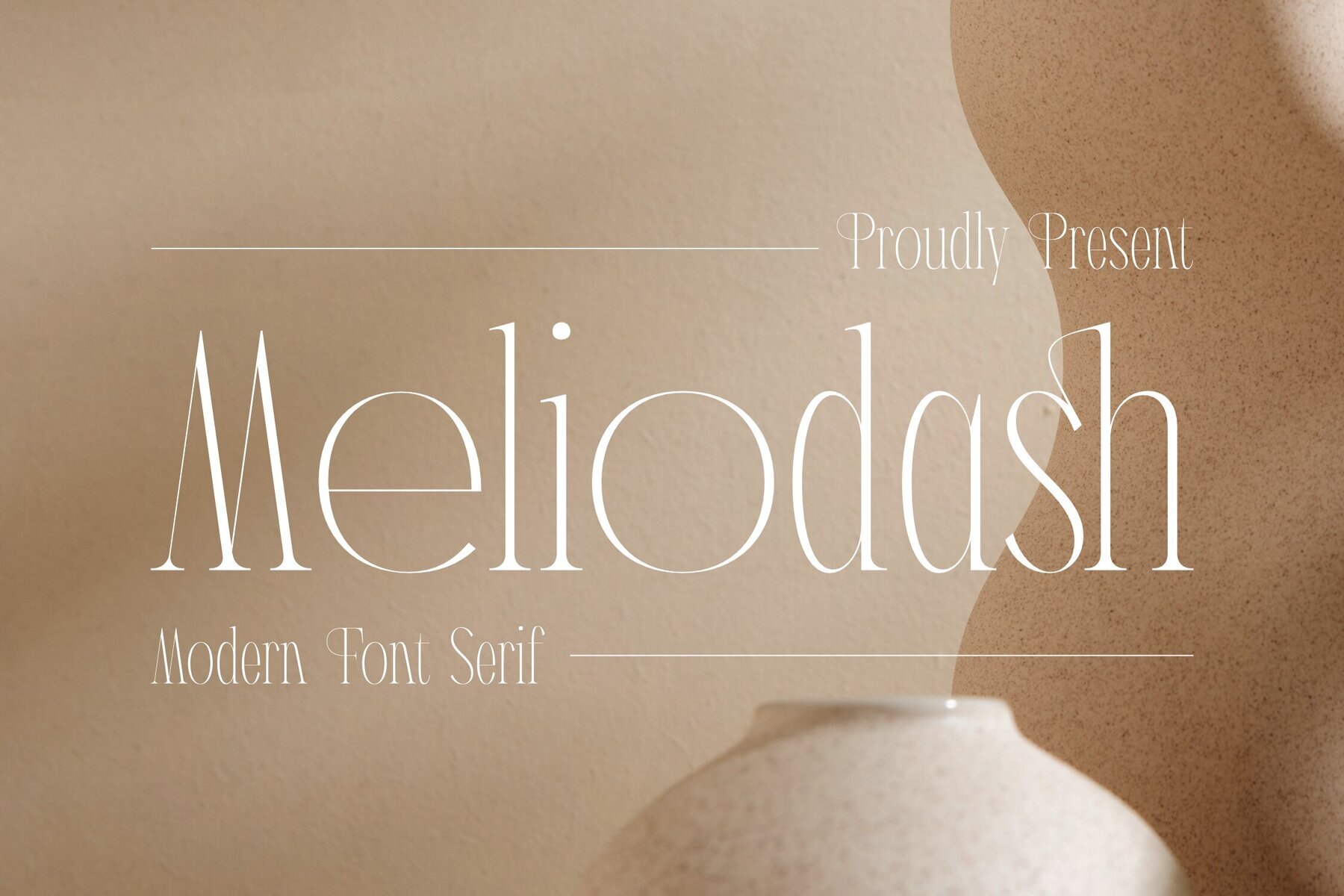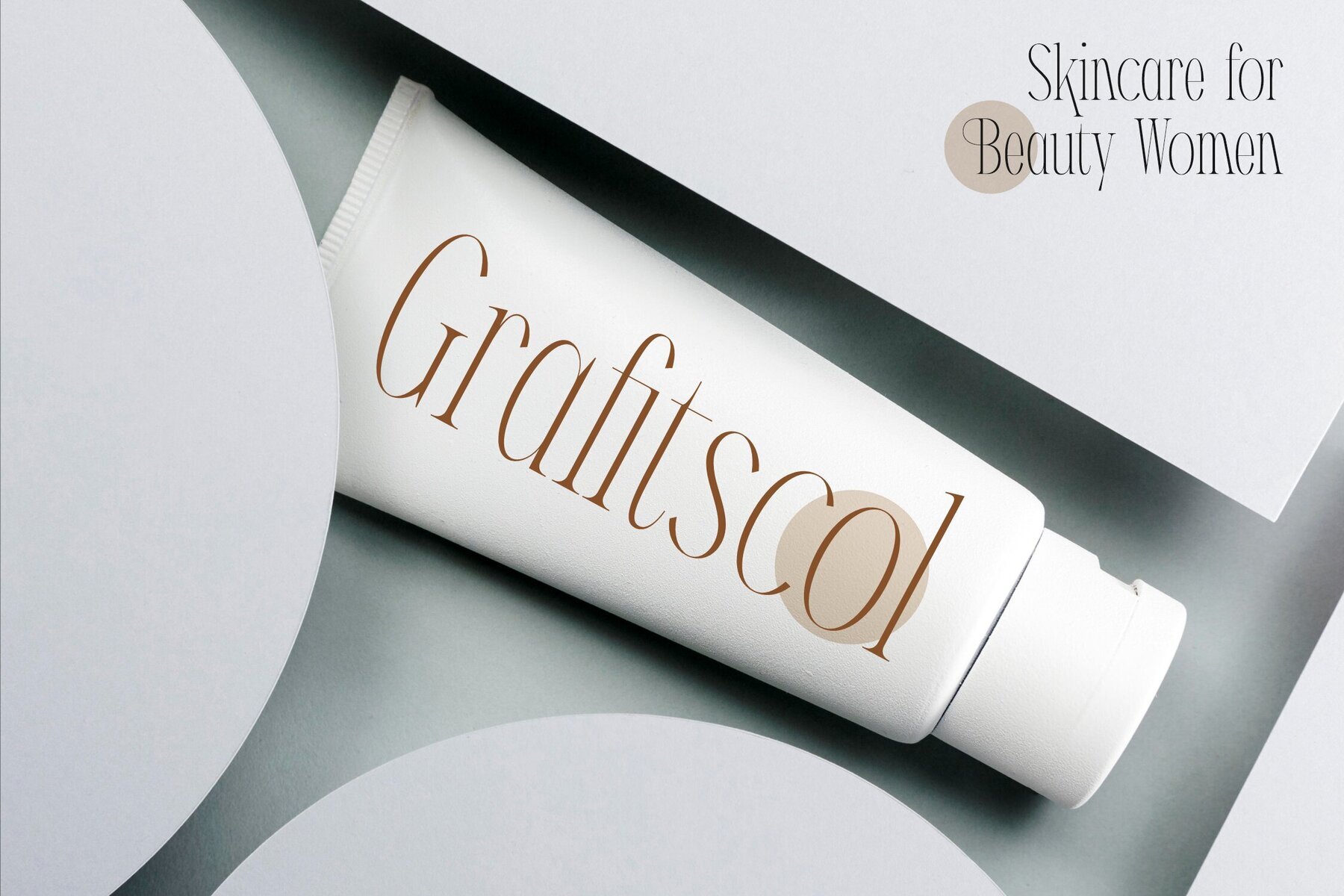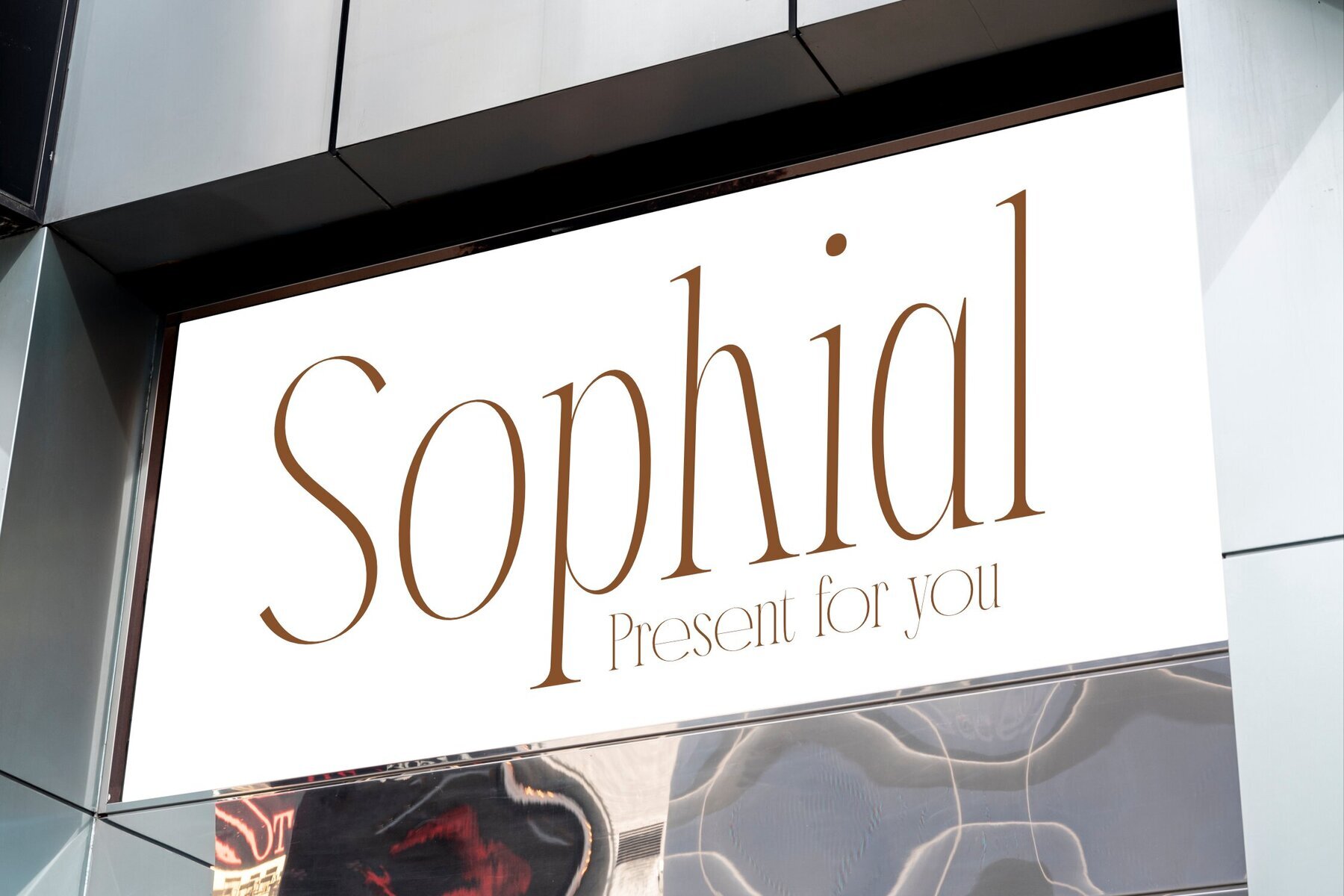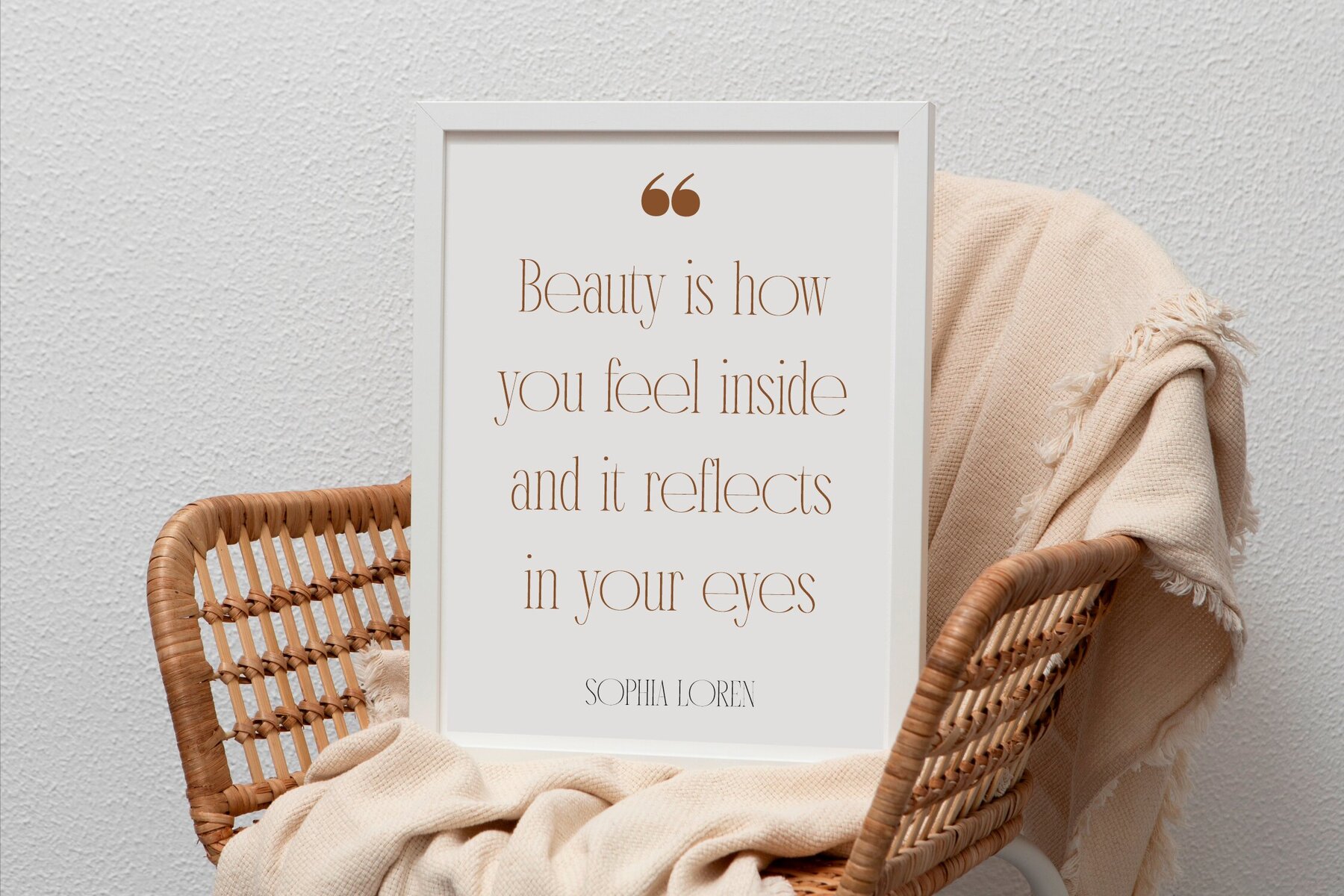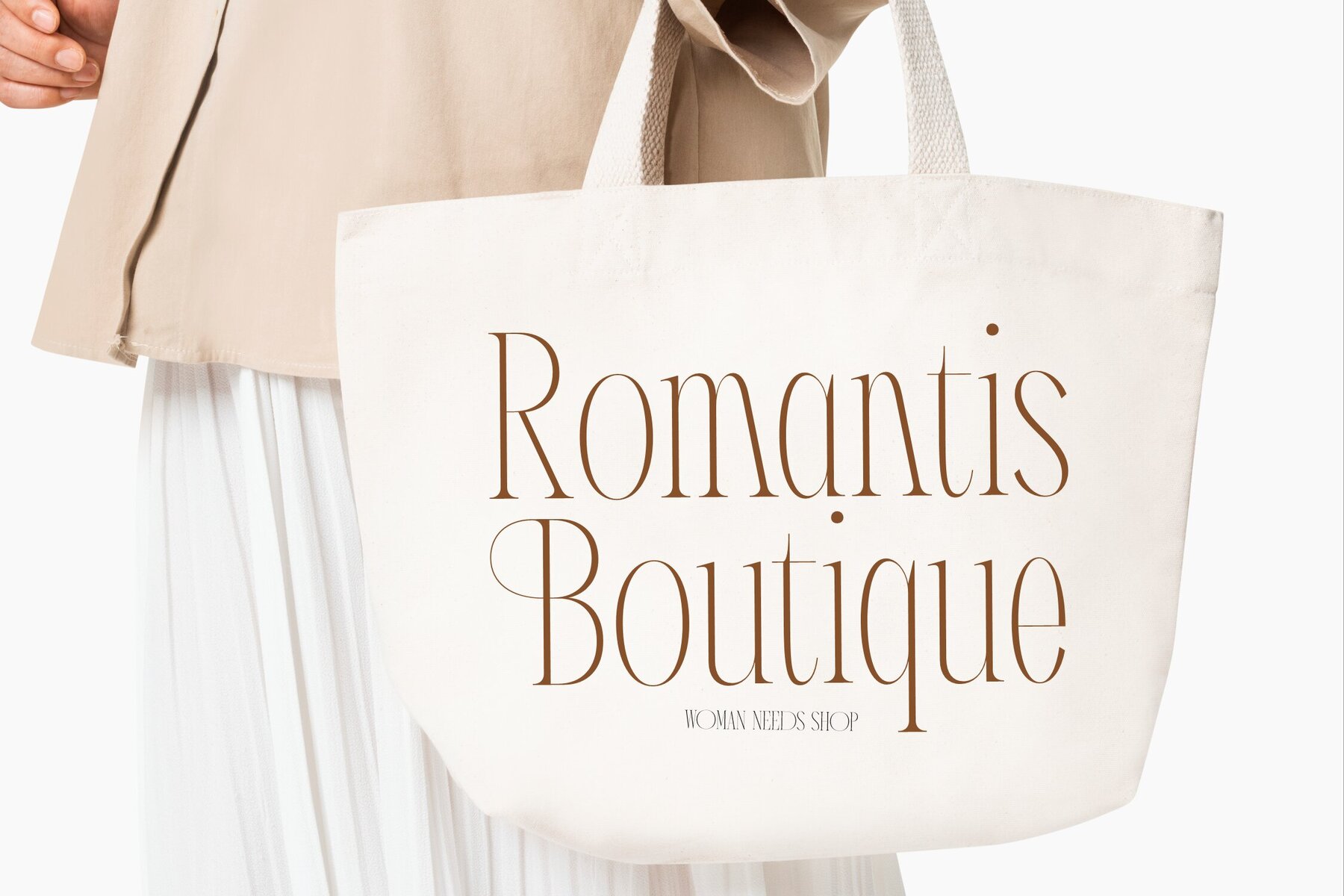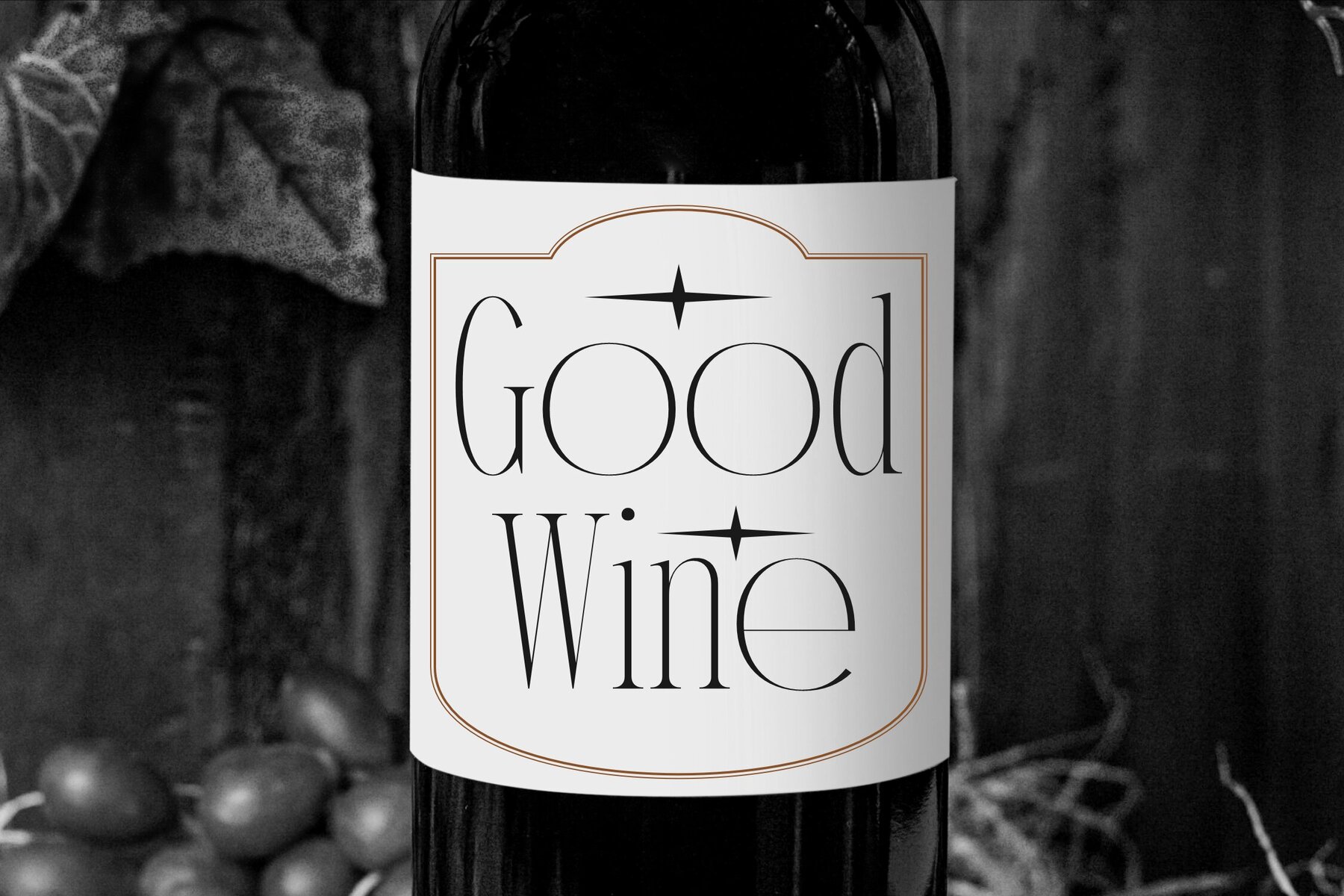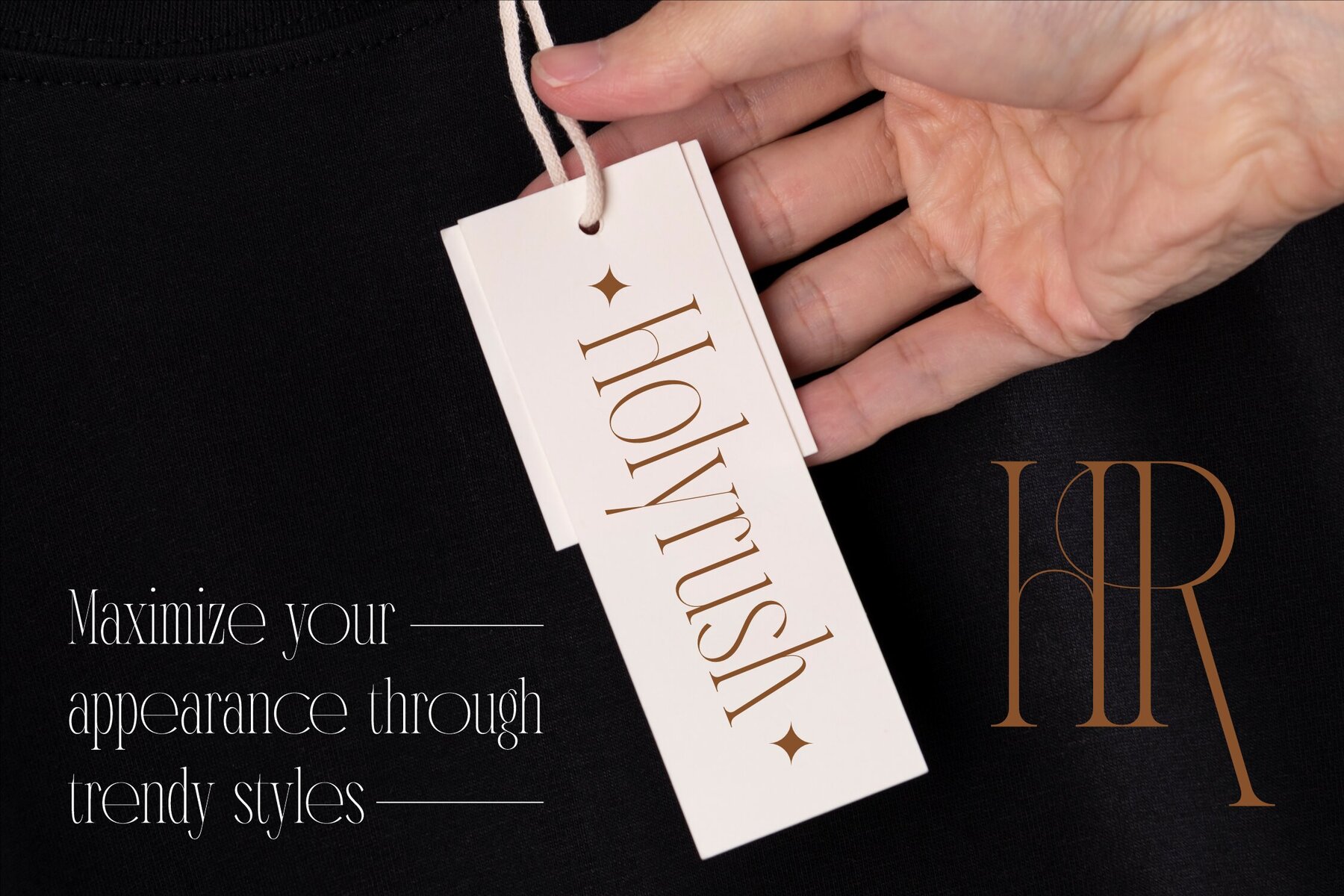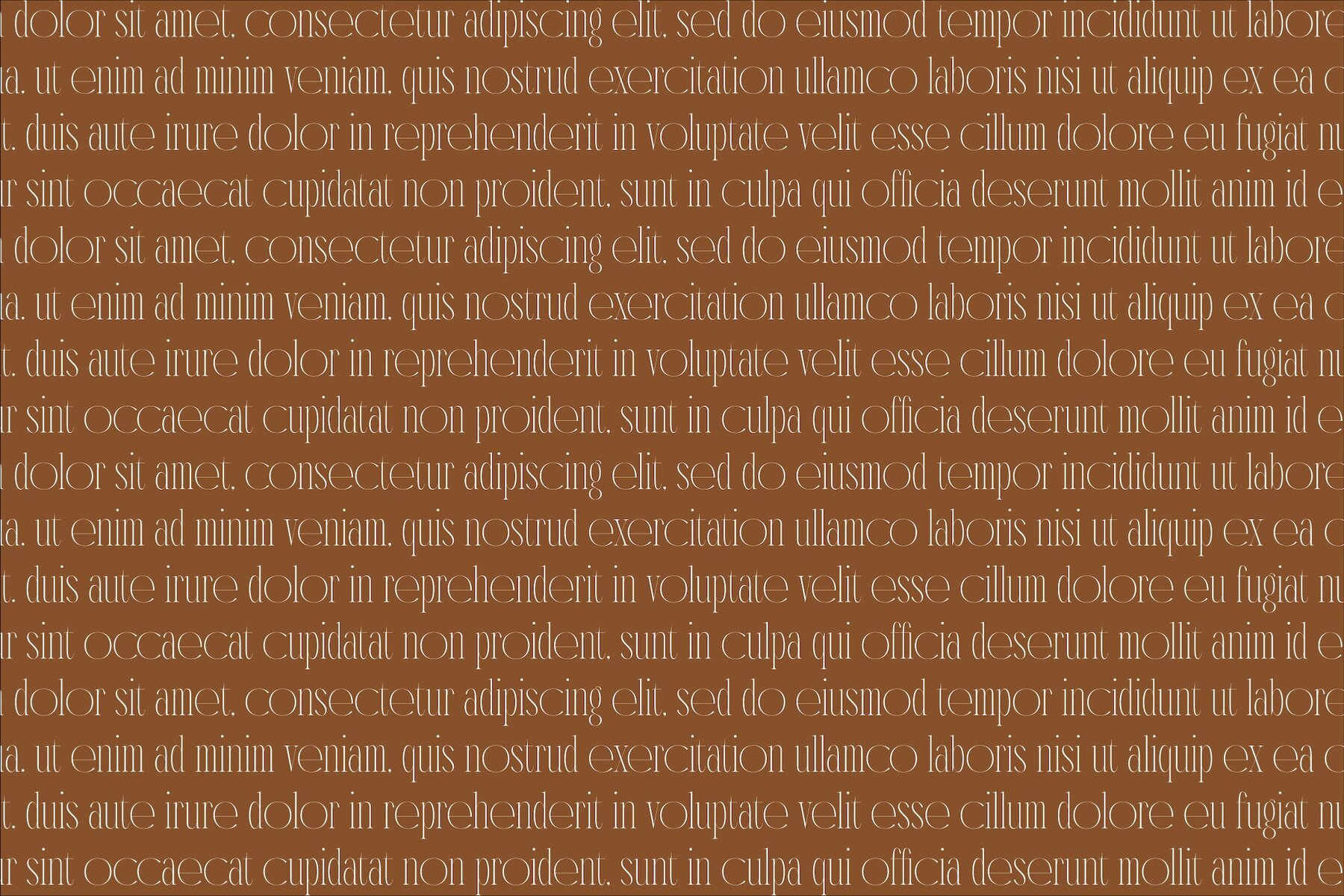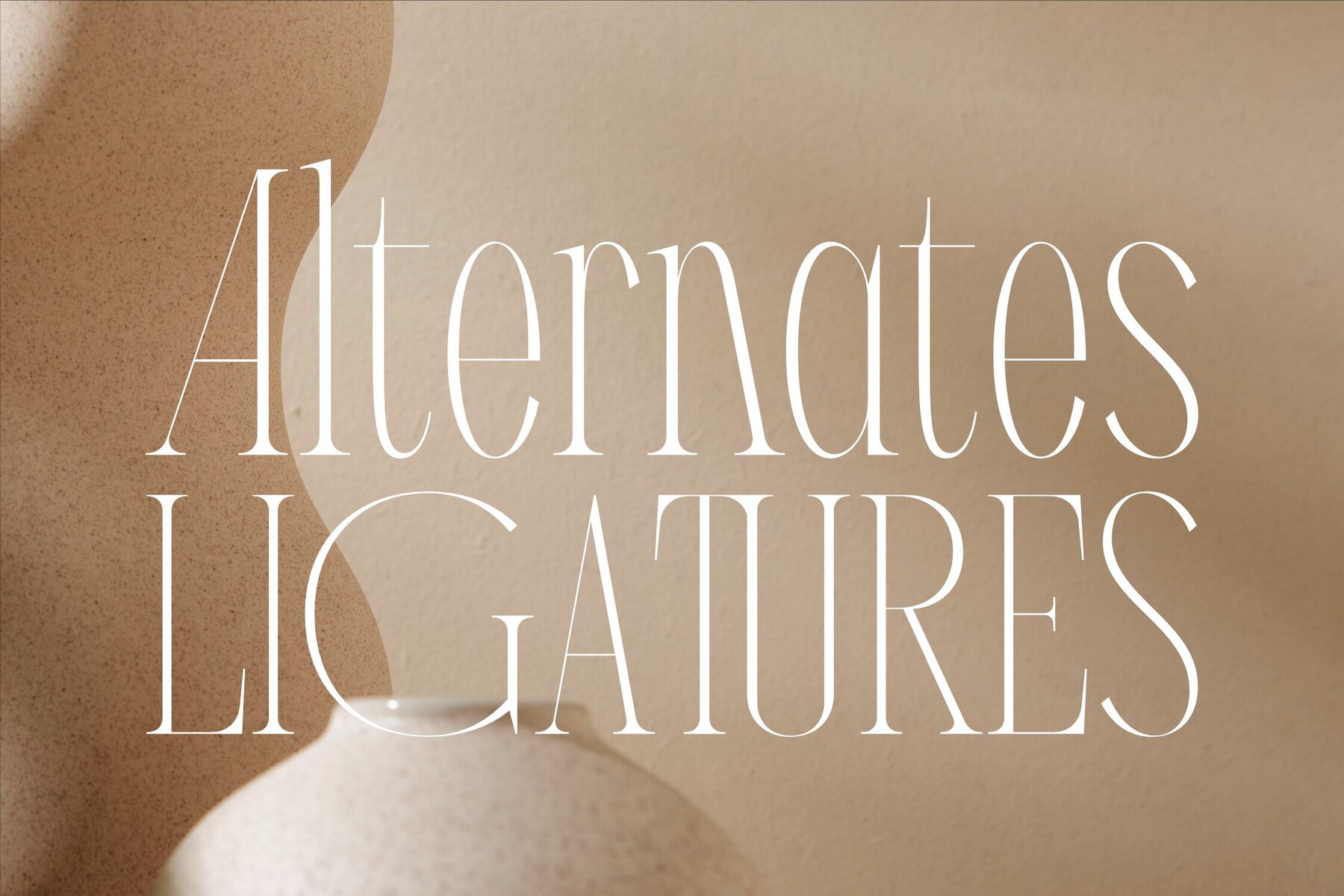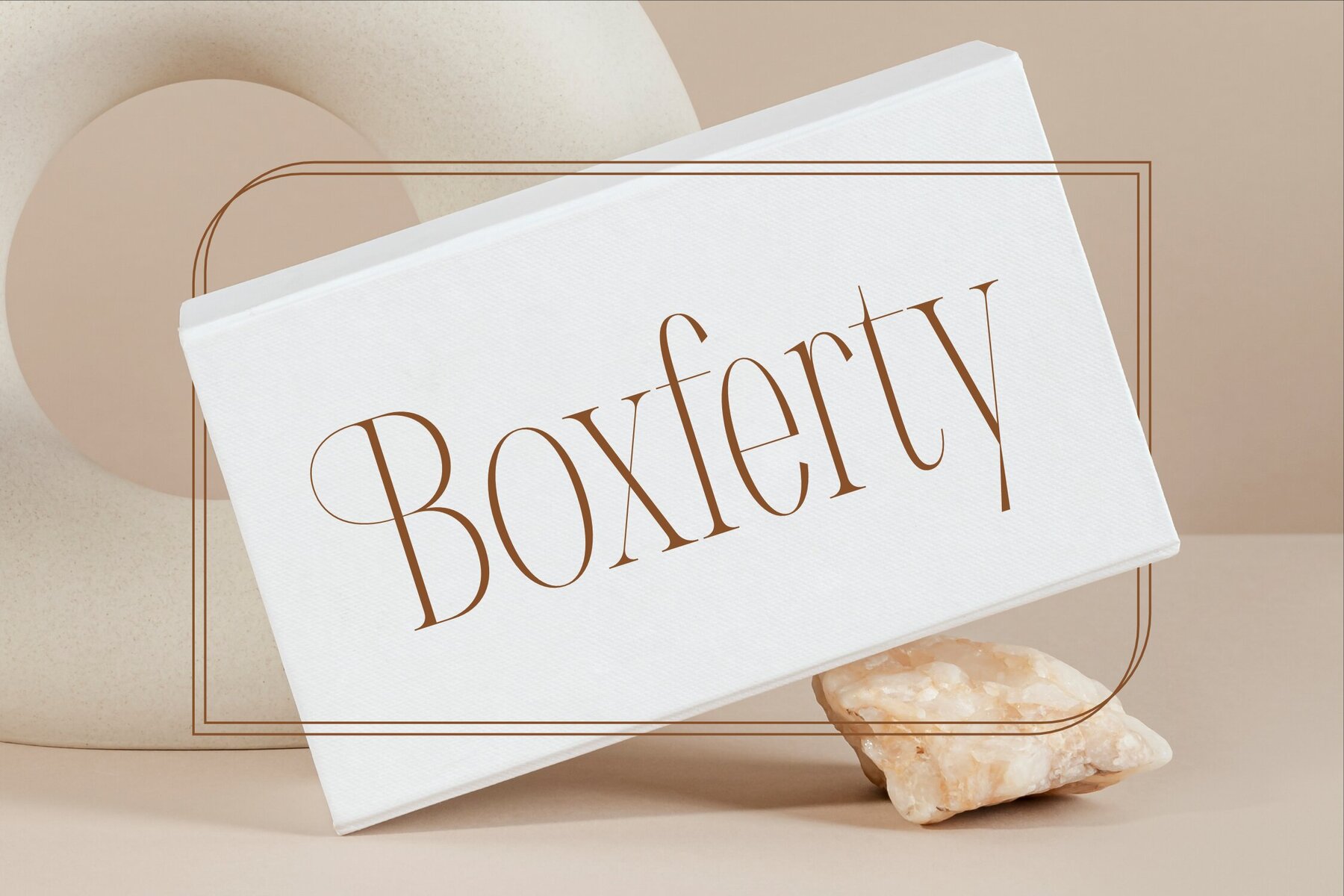
Meliodash Font
Explore Meliodash, the perfect blend of modern elegance and timeless classic design, brought to life by Storytype Studio. This versatile serif typeface creates a unique impression with its refined style, making it an excellent choice for luxury logos, book or movie titles, fashion brands, magazines, and clothing labels. Elevate your typography with this sophisticated font.Discover Meliodash Typeface